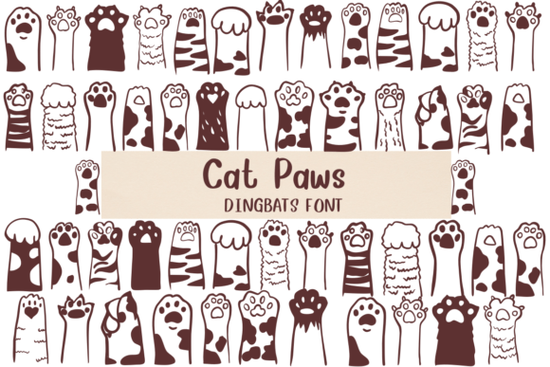
If you’ve been looking for a way to add a playful, feline touch to your designs, Cat Paws Font might be exactly what you need. Instead of traditional letters, each character in this set shows a different cat paw design. It’s a fun dingbat that works well for pet‑themed projects, children’s materials, or anything that calls for a lighthearted, cat‑loving vibe.
What makes a paw print font different from regular fonts?
Most fonts are designed to be read as text. Dingbats like this one replace letters with small illustrations, so you get a collection of varied paw prints instead of readable words. That makes them ideal for decorative headings, social media graphics, or repeating patterns. You can also use them as standalone elements in scrapbooking, sticker designs, or print‑on‑demand products.
How can you use this playful font in your projects?
The beauty of a paw print dingbat is its versatility. Here are a few ways designers, crafters, and small business owners have used it:
- For greeting cards – Create a cute cover or inside pattern using different paw symbols.
- On merchandise – T‑shirts, tote bags, and mugs with paw prints always appeal to cat lovers.
- As a border or background – Repeat the characters to form an all‑over paw print pattern for wrapping paper or digital scrapbook pages.
- In children’s room decor – Pair it with pastel colors for a nursery wall art set or a growth chart.
If you’re a print‑on‑demand seller, a dedicated cat line can help you stand out. You might also combine it with other decorative dingbats to create a custom collection.
Can you use cat paw fonts for social media or blog graphics?
Absolutely. They add a playful touch to Instagram stories, Pinterest pins, or YouTube thumbnails for cat‑related content. You can even use them as bullet points or separators in blog posts. Because the characters are small, they won’t overwhelm your layout but will still reinforce your theme.
How do you ensure your designs look professional?
A little restraint goes a long way. Use the paw font for a single element – maybe the title of a card or the background pattern – and keep other text readable. Pair it with a clean sans‑serif font for body copy. Also, consider scaling the paw characters to create visual variety; some paw prints can be larger and some smaller.
Once you have the font installed, the next step is to experiment. Try creating a repeating pattern, a sticker sheet, or a simple birthday card. A small paw print can make a big difference in projects that need a friendly, animal‑loving feel.